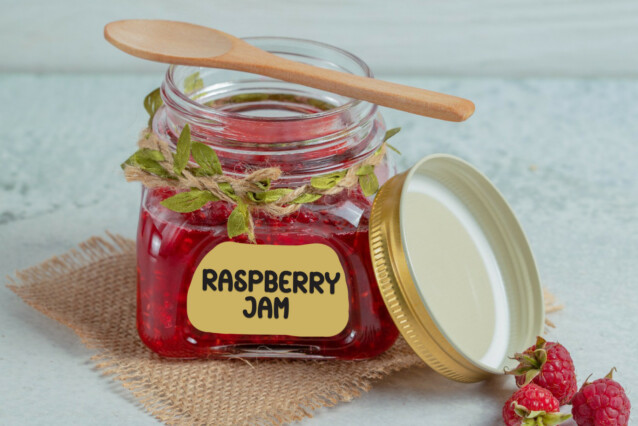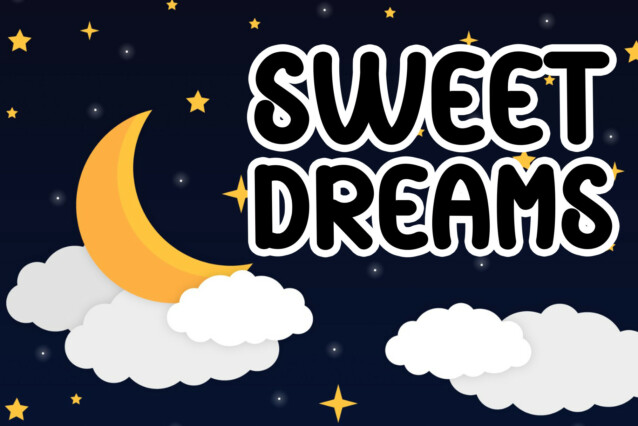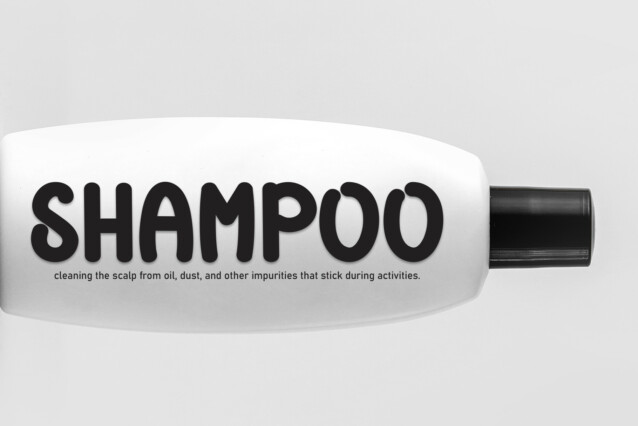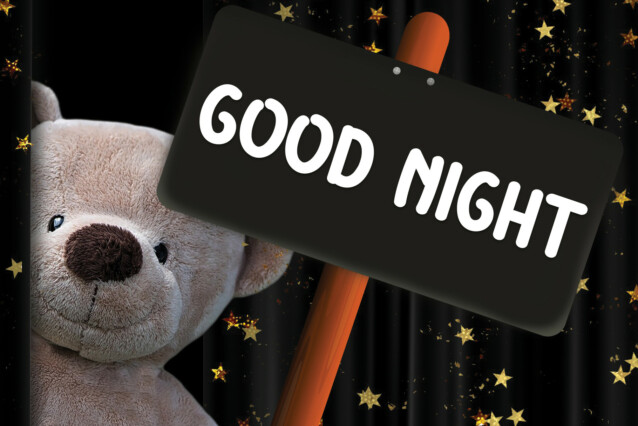
Door Price Display Font
Door Price Display Font is a sweet and friendly handwritten display font. Cute and fun, this font is ideal for writing wedding invitations, cards, or any other design that might need a playful touch!